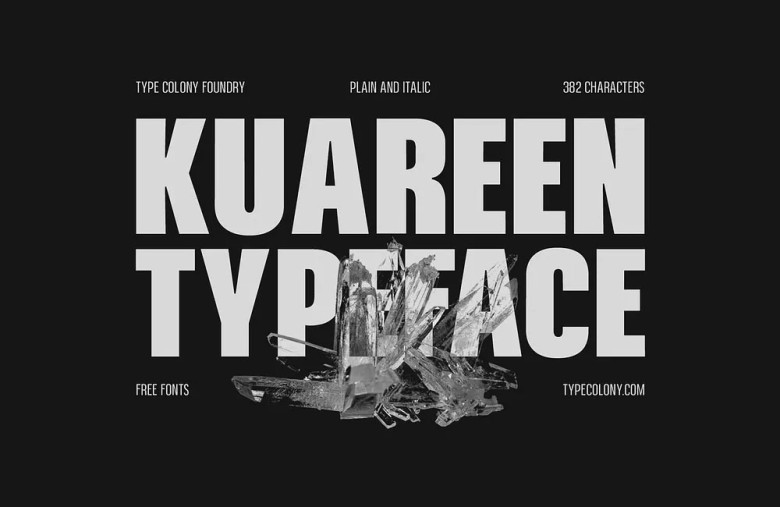
TC Kuareen Font
TC Kuareen is a condensed sans-serif font designed to produce striking titles with distinctive designs while remaining legible for modern usage. It can be utilized across digital and print media such as branding, logos packaging, websites headlines posters etc. With 16 weight options in both slanted and upright styles it can meet various design requirements easily.
TC Kuareen Sans Serif Font